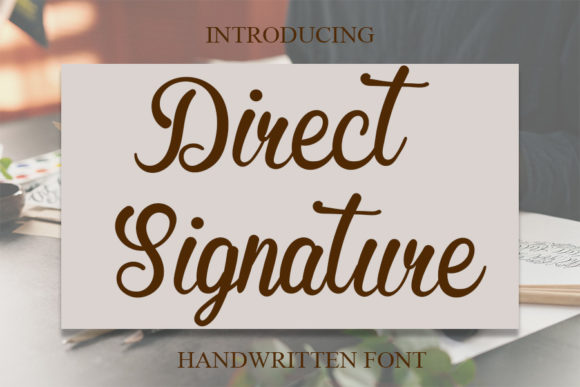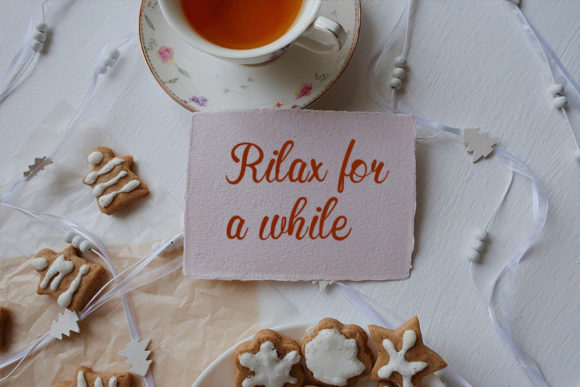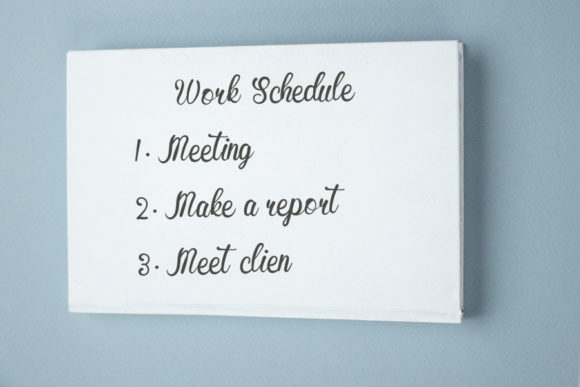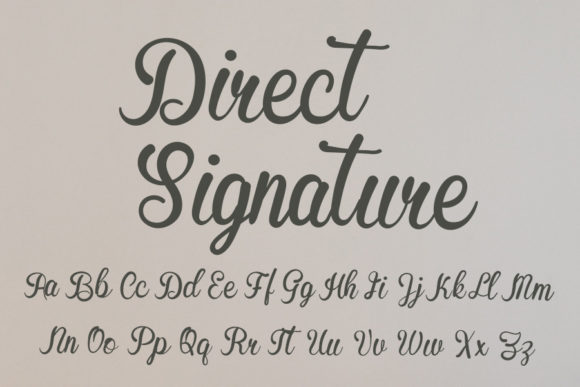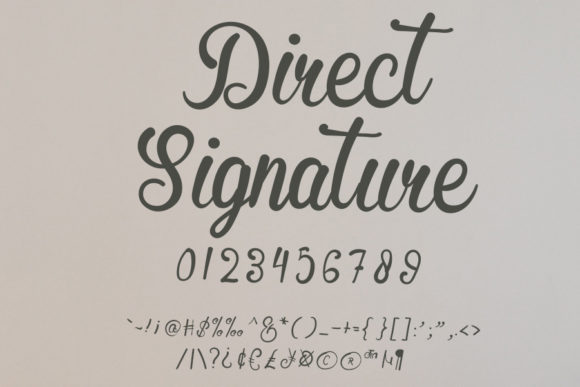
About Direct Signature Font
Direct Signature is a cool handwritten font with a modern vibe and spotless form, inspired by a classic calligraphy. Not too thin and not too thick, balanced and varied, this font was designed to enhance the beauty of your projects.